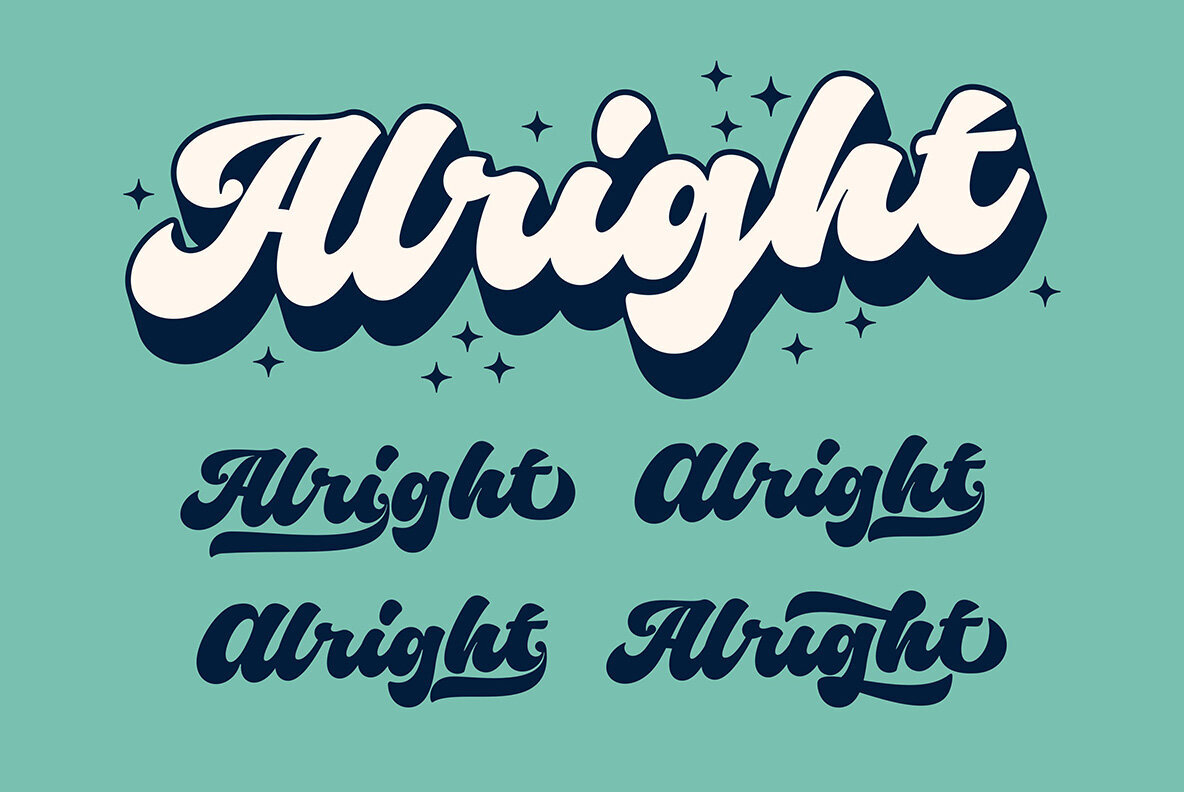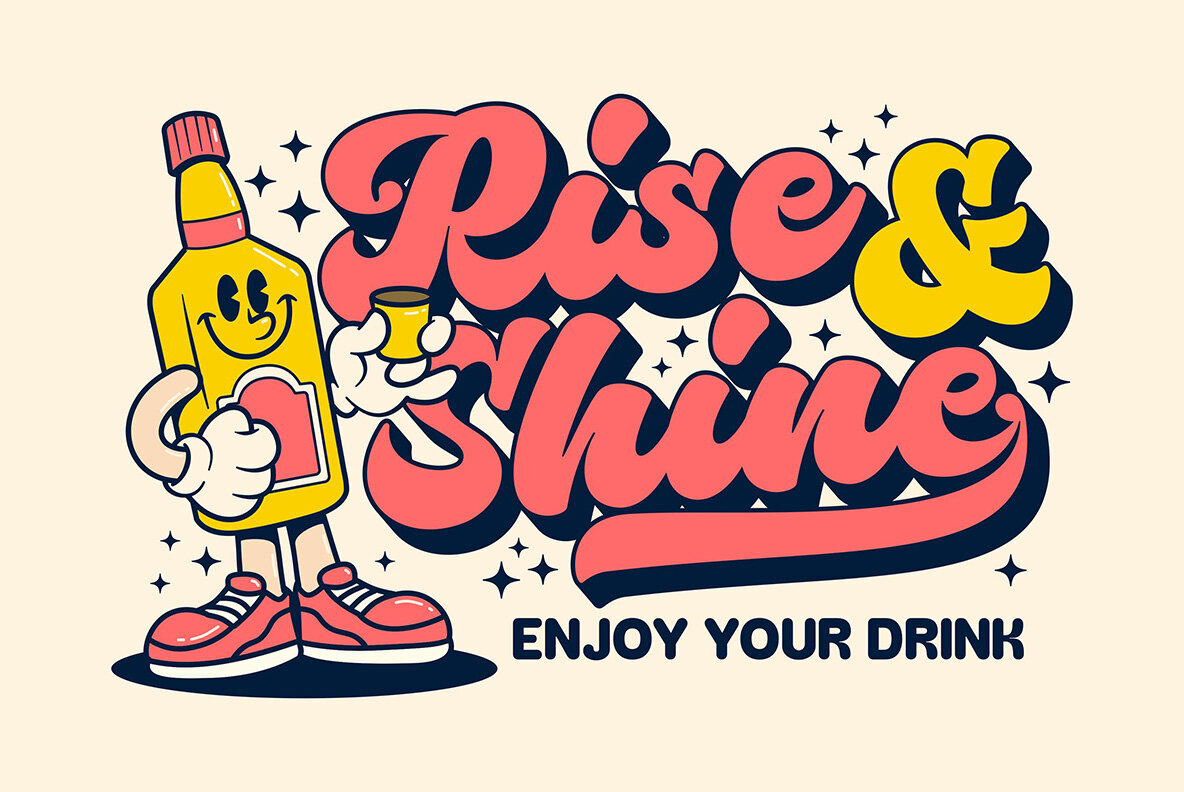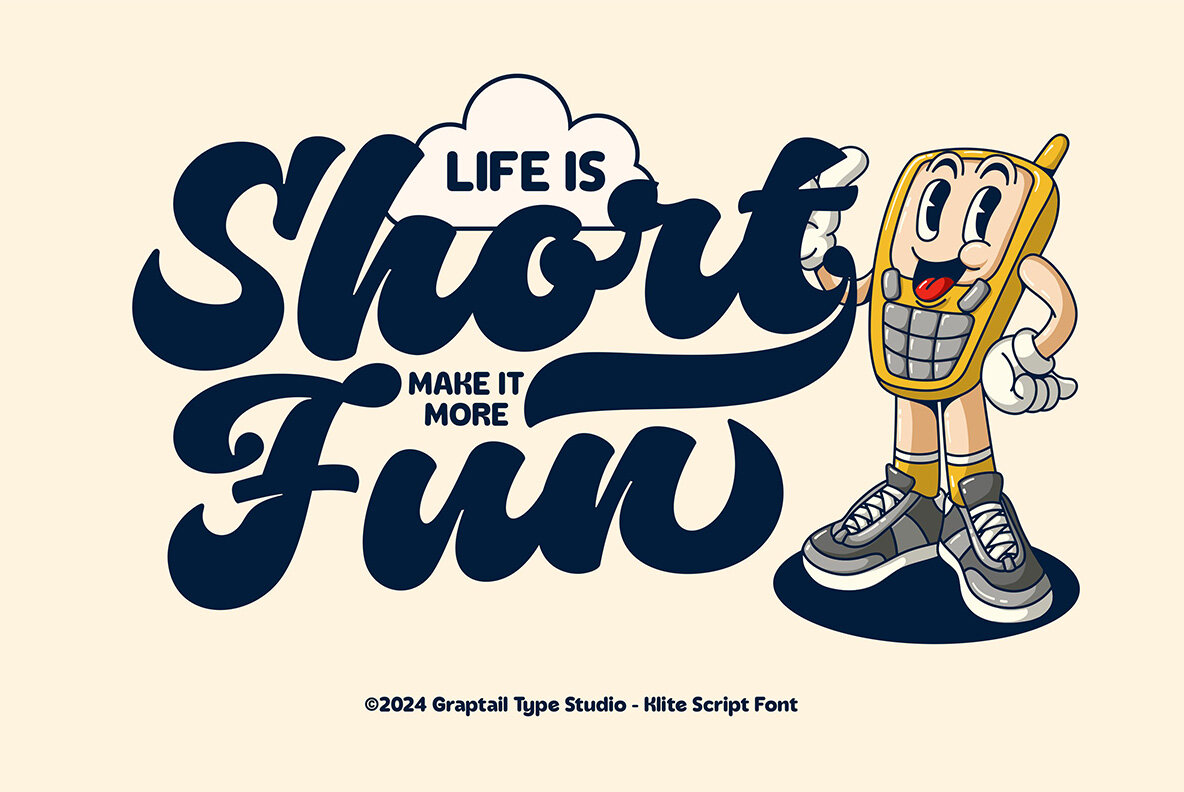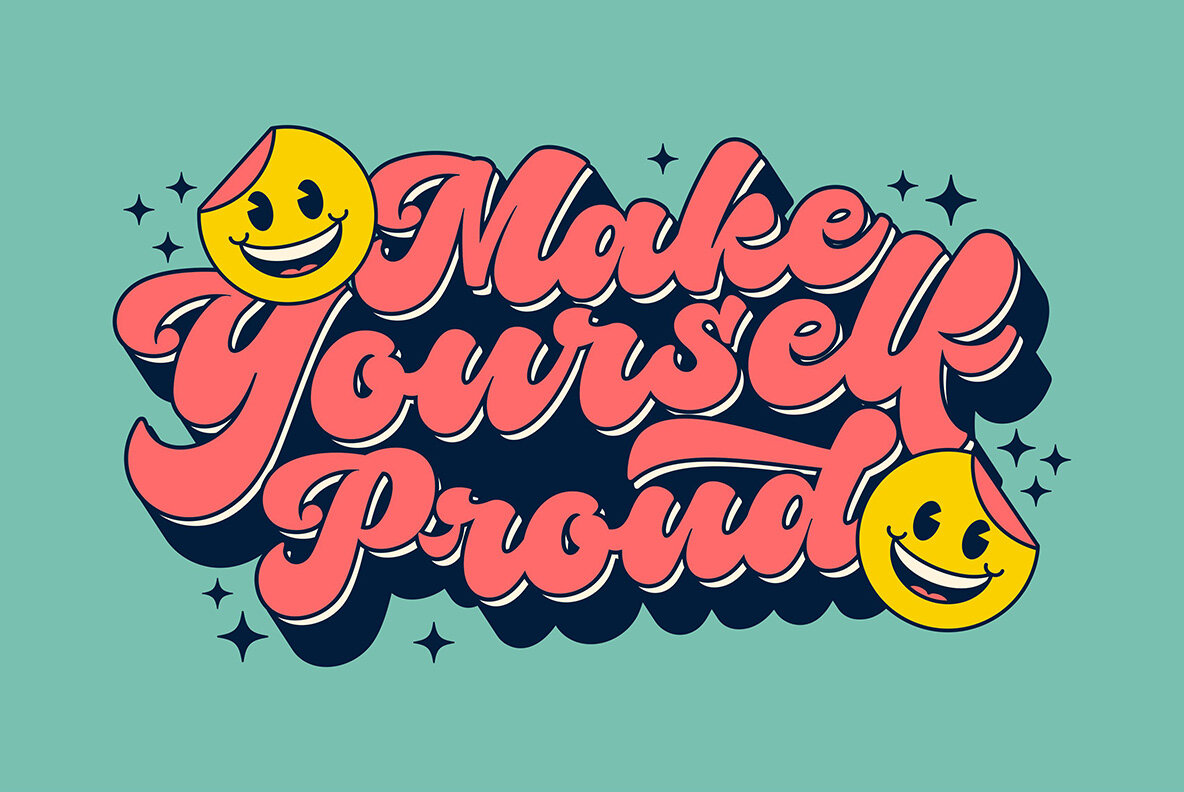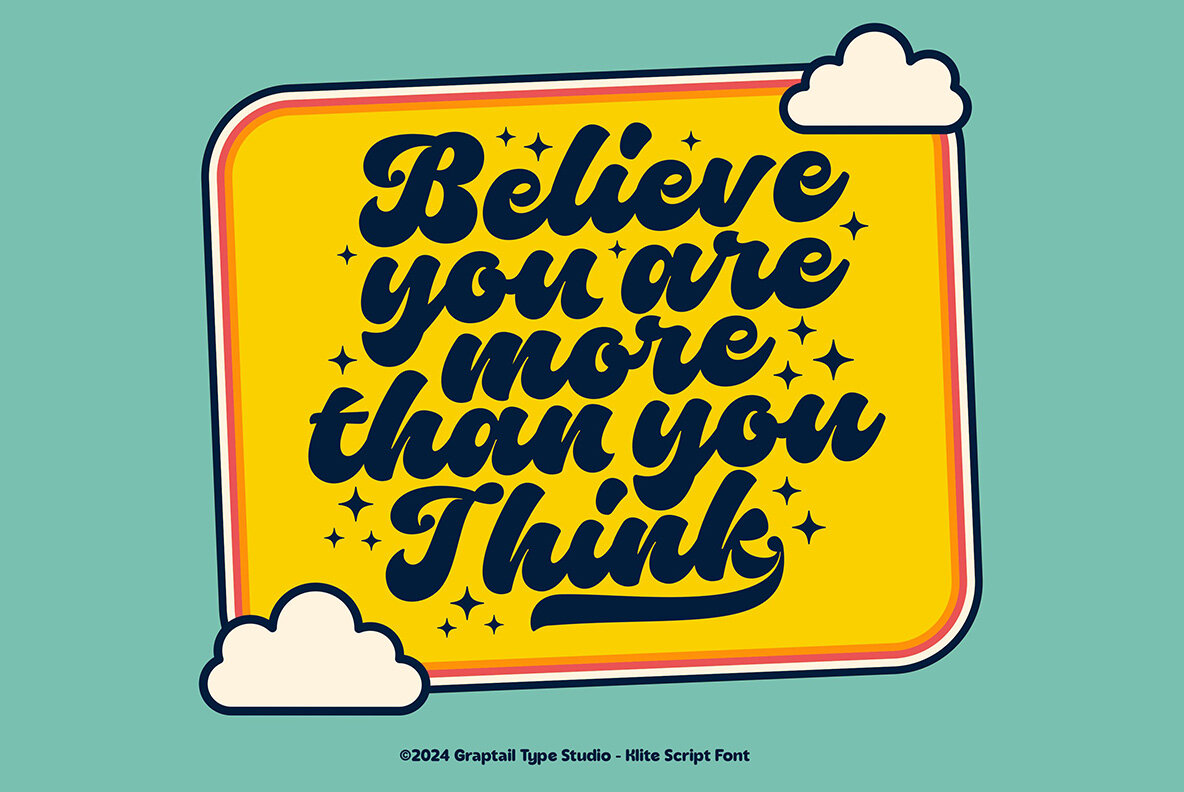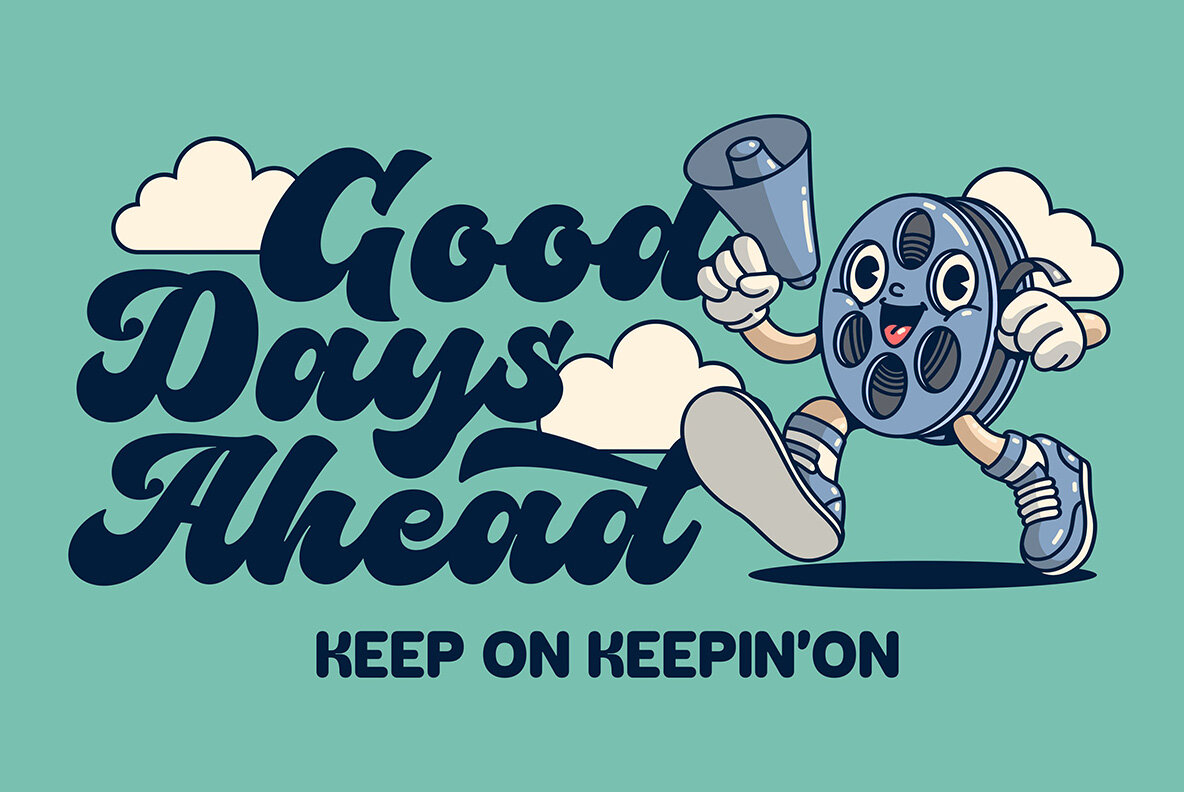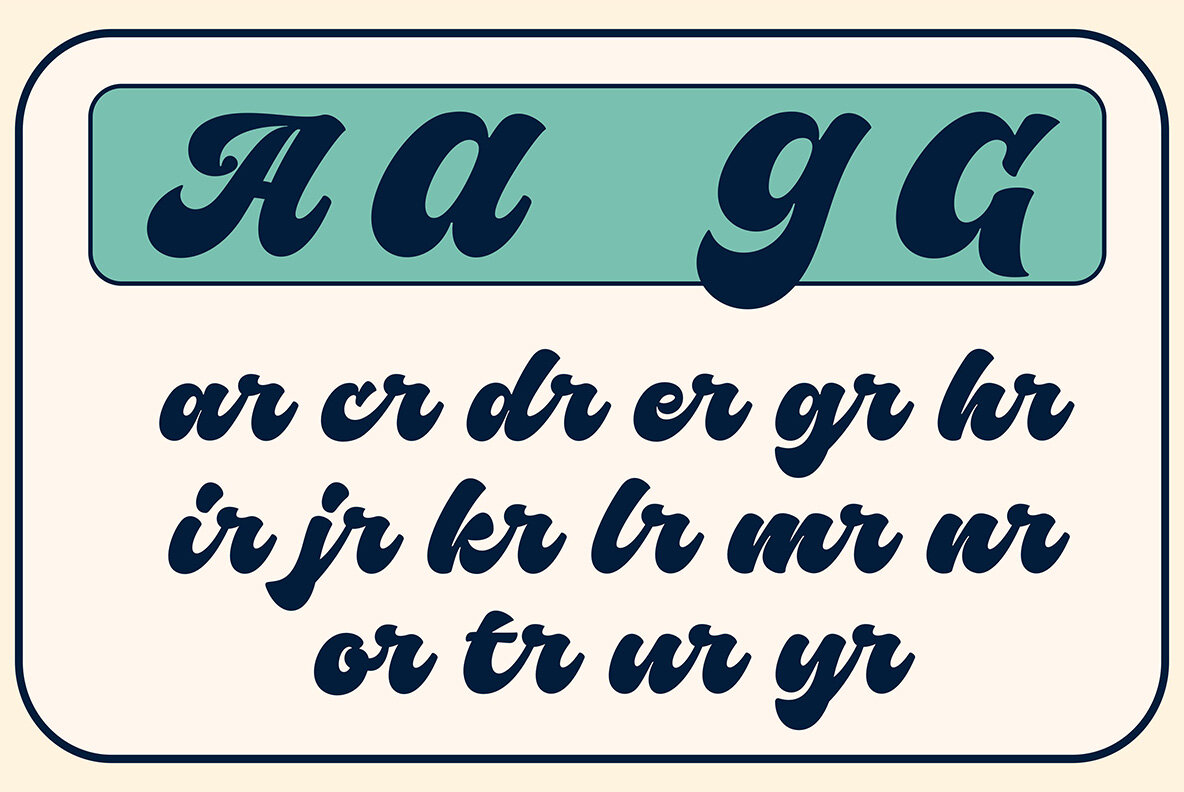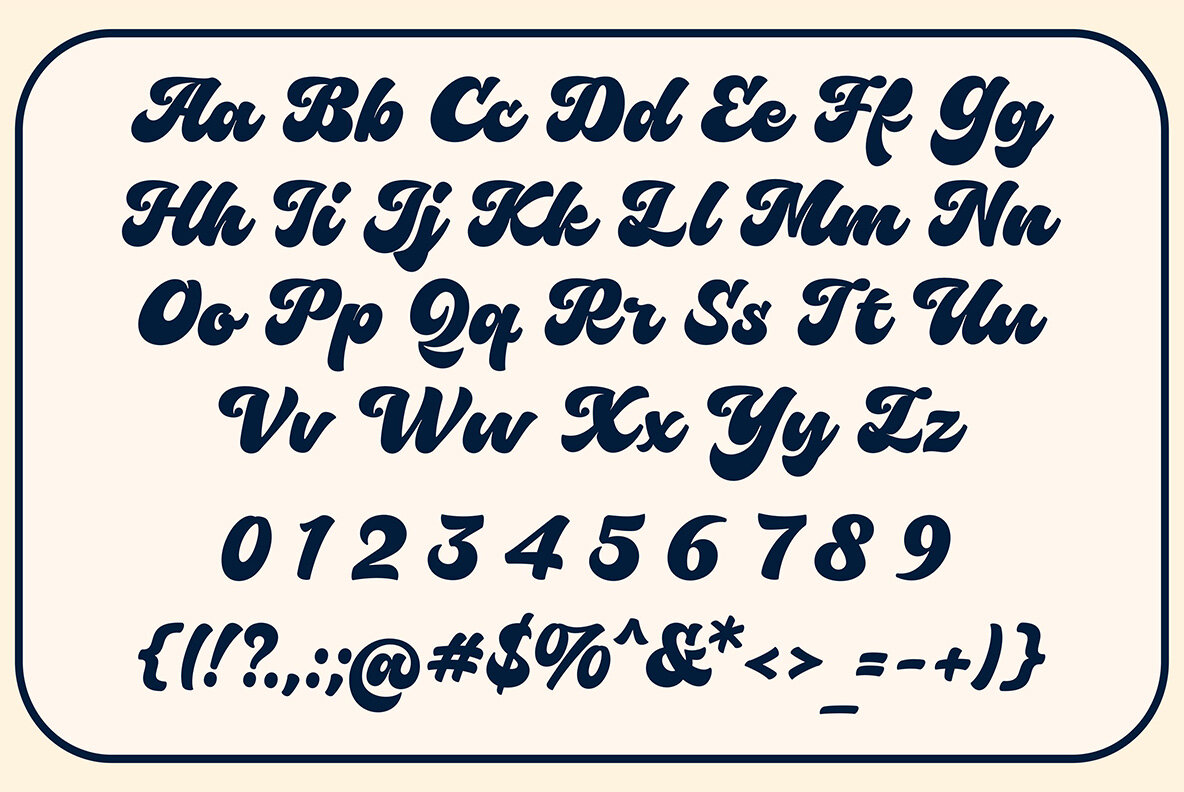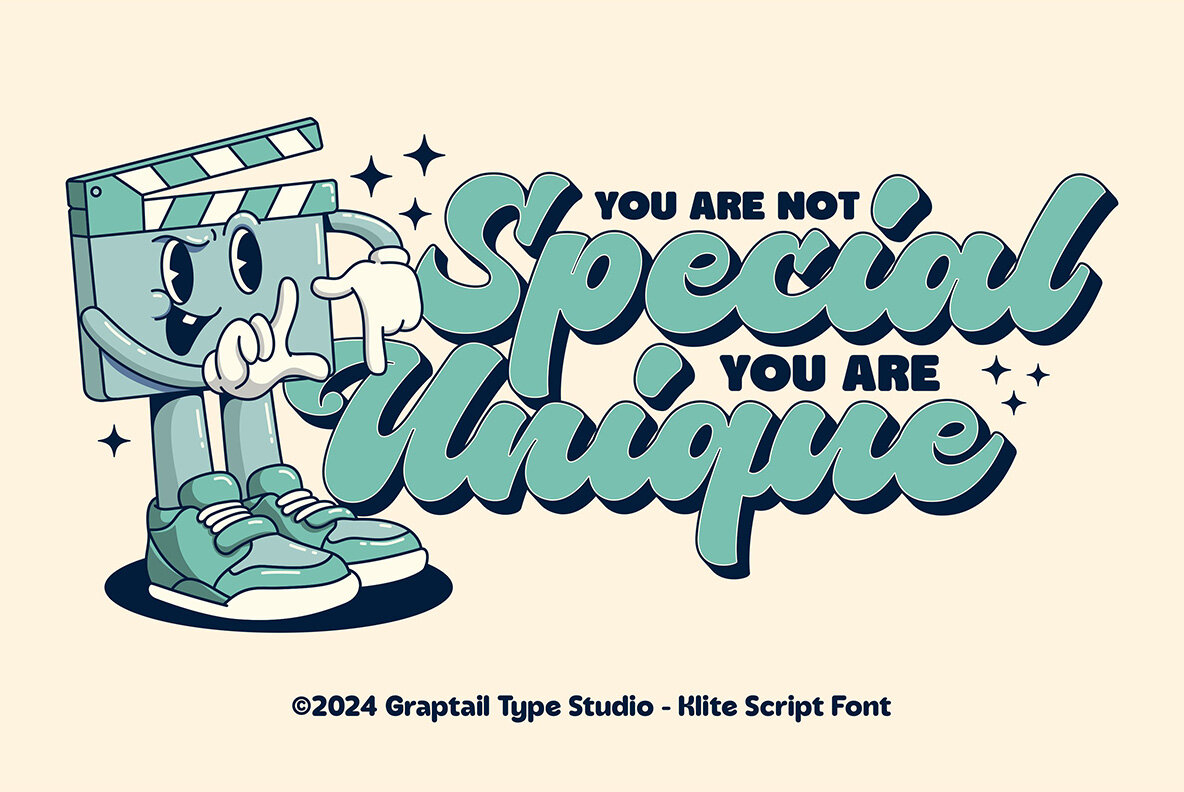
Klite Script Font
Klite Script Regular
Klite Script is a stylish font that combines a modern ethos with a retro aesthetic, perfect for creating eye-catching and nostalgic designs. This versatile typeface is ideal for crafting stunning logos, memorable quotes, engaging blog posts, and sophisticated branding projects. It brings a unique flair to magazine imagery and wedding invitations, making each piece truly stand out.
With its unique alternatives and ligatures, Klite Script is especially suited for retro-themed posters, advertisements, and packaging. This font not only adds a touch of nostalgia but also imparts a distinctive personality to your designs. Its bold and groovy appearance is perfect for creating standout titles and headings, ensuring your content gets noticed.